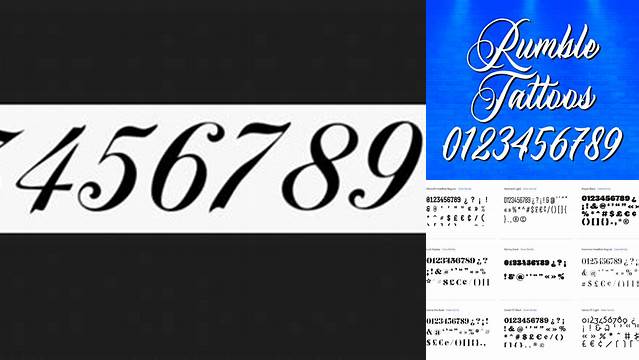
Number Tattoo Fonts: Find Your Perfect Style
Are you planning to get a number tattoo and searching for the perfect font? Well, you've come to the right place! Choosing the right font is crucial because it significantly impacts the overall look and feel of your tattoo. A well-chosen font can transform a simple number into a stunning piece of art. In this article, we’ll explore some of the best number tattoo fonts, provide tips on how to select the ideal one, and offer inspiration to help you make the best decision. Let’s dive in, guys!
Why Font Choice Matters for Number Tattoos
When it comes to number tattoos, the font you select plays a pivotal role in conveying the message and aesthetic you desire. The font is more than just a stylistic choice; it reflects your personality, the meaning behind the numbers, and the overall artistic impression. Think of it this way: the same number can look entirely different depending on whether it’s rendered in a bold, traditional serif font or a sleek, modern sans-serif typeface. Font choice impacts readability, longevity, and the tattoo’s ability to harmonize with other elements of your design.
Readability is paramount. A complex or overly stylized font might look artistic initially, but it could become illegible over time, especially as the tattoo ages and the ink spreads slightly. Simpler, cleaner fonts tend to hold up better and remain readable for years. Consider the size of your tattoo as well; smaller tattoos require fonts with clear, distinct lines to prevent the numbers from blurring together. Beyond readability, the font sets the tone. A script font can add elegance and sophistication, making it ideal for memorial tattoos or dates of significance. Conversely, a blocky, industrial font might be perfect for someone wanting a bold, edgy look. The font should resonate with the meaning behind the numbers. Are they a birthdate, a lucky number, or a significant year? The font should enhance and reflect that meaning. Harmony with other design elements is also crucial. If your number tattoo is part of a larger design, the font should complement the other visual components, such as images, symbols, or text. A cohesive design ensures that the tattoo looks intentional and well-planned, rather than a collection of disparate elements. Ultimately, the right font choice transforms your number tattoo from a mere sequence of digits into a meaningful and aesthetically pleasing piece of body art.
Top Font Styles for Number Tattoos
Selecting the best font for your number tattoo can be exciting but also a bit overwhelming with so many options available. To help you navigate this process, let's break down some of the top font styles that work exceptionally well for number tattoos. Each style brings its unique flair, allowing you to tailor your tattoo to your personal taste and the meaning behind the numbers.
Roman Numerals
Roman numerals are a classic and timeless choice for tattoos, offering an air of sophistication and historical significance. They are particularly popular for memorial tattoos, dates of birth, or anniversaries. The elegant, symmetrical lines of Roman numerals make them visually appealing and easy to read, even in smaller sizes. One of the main reasons people opt for Roman numerals is their inherent gravitas. They evoke a sense of history and tradition, connecting the wearer to a rich cultural heritage. This makes them an excellent choice for those who appreciate classical aesthetics and timeless designs. Moreover, Roman numerals can be easily integrated into various tattoo styles. Whether you prefer a minimalist design or a more elaborate piece, they can be adapted to suit your vision. They pair well with other design elements such as floral patterns, geometric shapes, or even other text. For example, a birthdate in Roman numerals can be incorporated into a larger memorial piece, surrounded by meaningful symbols or quotes. The readability of Roman numerals is another significant advantage. Despite their decorative appearance, they are generally easy to decipher, especially when rendered in a clear, simple font. However, it's crucial to ensure that the numerals are correctly represented to avoid any embarrassing or permanent errors. Before getting inked, double-check the accuracy of the Roman numerals with a reliable source or a knowledgeable tattoo artist. Consider the placement of your Roman numeral tattoo as well. They often look stunning on the wrist, forearm, shoulder, or along the spine. The placement should complement the design and enhance its overall impact. Ultimately, Roman numerals offer a blend of elegance, history, and versatility, making them a top choice for number tattoos that stand the test of time.
Old English
The Old English font exudes a sense of tradition and timelessness, making it a popular choice for those looking to add a touch of historical flair to their number tattoo. Characterized by its elaborate, ornate letterforms, Old English conveys a sense of gravitas and old-world charm. This font style is particularly well-suited for individuals who appreciate gothic aesthetics, medieval history, or classic literature. The distinctive look of Old English fonts comes from their intricate details and bold strokes. Each number is crafted with elaborate serifs and flourishes, creating a visually striking effect. This makes them ideal for larger tattoos where the details can be fully appreciated. However, it's essential to consider the readability of Old English, especially in smaller sizes. The ornate nature of the font can sometimes make it difficult to decipher, so it's crucial to work with a skilled tattoo artist who can render the numbers clearly and accurately.
When incorporating Old English into a number tattoo, consider the context and meaning of the numbers. This font style pairs well with significant dates, such as birth years, anniversaries, or memorial dates. The formal and elegant nature of Old English adds a sense of importance and reverence to these numbers, making them stand out. It's also important to think about the placement of your Old English number tattoo. This font style tends to look best on larger areas of the body, such as the upper arm, back, or chest, where the details can be fully showcased. Avoid placing it in areas where the skin is prone to stretching or distortion, as this can affect the legibility of the tattoo over time. Moreover, consider the overall design of your tattoo. Old English numbers can be combined with other design elements, such as banners, scrolls, or heraldic symbols, to create a cohesive and visually appealing piece. Be sure to choose elements that complement the font style and enhance the overall aesthetic. While Old English fonts can add a touch of elegance and tradition to your number tattoo, it's essential to approach this style with care and attention to detail. Work closely with your tattoo artist to ensure that the numbers are rendered accurately and legibly, and consider the placement and overall design of your tattoo to create a timeless and meaningful piece of body art.
Gothic
Gothic fonts bring a bold and dramatic flair to number tattoos, making them a favorite among those who appreciate a darker, more edgy aesthetic. Characterized by their sharp angles, heavy strokes, and elaborate details, Gothic fonts command attention and exude a sense of mystery and intrigue. This style is particularly popular among individuals who are drawn to alternative cultures, such as punk, metal, or gothic subcultures. The distinctive look of Gothic fonts stems from their historical roots in medieval calligraphy. These fonts were originally used in illuminated manuscripts and religious texts, giving them a sense of historical gravitas and timeless appeal. The sharp, angular letterforms and intricate embellishments create a visually striking effect that is both captivating and imposing.
When considering a Gothic font for your number tattoo, it's important to think about the overall design and meaning of the tattoo. Gothic fonts pair well with symbols and imagery that evoke a sense of darkness, such as skulls, ravens, or crosses. They can also be used to create a sense of contrast and tension when combined with lighter, more delicate elements. One of the key considerations when choosing a Gothic font is readability. The elaborate details and sharp angles of these fonts can sometimes make them difficult to decipher, especially in smaller sizes. It's crucial to work with a skilled tattoo artist who can render the numbers clearly and accurately, ensuring that they remain legible over time. Additionally, think about the placement of your Gothic number tattoo. This font style tends to look best on larger areas of the body, such as the back, chest, or upper arm, where the details can be fully appreciated. Avoid placing it in areas where the skin is prone to stretching or distortion, as this can affect the legibility of the tattoo. Moreover, consider the overall aesthetic you're trying to achieve. Gothic fonts can be used to create a variety of different looks, from dark and menacing to elegant and refined. The key is to choose a font that aligns with your personal style and the meaning of the numbers you're tattooing. Whether you're drawn to the historical significance, the edgy aesthetic, or the dramatic flair, Gothic fonts offer a unique and compelling option for number tattoos that are sure to make a statement.
Simple Sans-Serif
If you're aiming for a clean, modern, and minimalist number tattoo, simple sans-serif fonts are an excellent choice. These fonts are characterized by their clean lines, lack of serifs (the small decorative strokes at the end of letterforms), and overall simplicity. Sans-serif fonts offer a contemporary aesthetic that is both versatile and timeless, making them a popular choice for individuals who appreciate understated elegance.
One of the main advantages of using a simple sans-serif font for your number tattoo is its readability. The clean lines and uncluttered design make these fonts easy to decipher, even in smaller sizes. This is particularly important for tattoos, as the ink can spread over time, potentially blurring the lines and making the numbers difficult to read. Sans-serif fonts also offer a high degree of versatility. They can be easily adapted to suit a variety of different tattoo styles and placements. Whether you're planning a small, discreet tattoo on your wrist or a larger piece on your back, a sans-serif font can be tailored to fit your needs. Moreover, sans-serif fonts pair well with other design elements. They can be combined with geometric shapes, minimalist patterns, or even other text to create a cohesive and visually appealing tattoo. The simplicity of the font allows the other elements to shine, creating a balanced and harmonious design. When choosing a sans-serif font for your number tattoo, consider the weight and spacing of the letters. A slightly bolder weight can help the numbers stand out, while adequate spacing ensures that they remain legible and distinct. It's also important to choose a font that complements your skin tone and the overall aesthetic you're trying to achieve. Whether you're drawn to the clean lines, the versatility, or the understated elegance, simple sans-serif fonts offer a timeless and reliable option for number tattoos that are both stylish and easy to read. They are especially suited for those who prefer a modern look and want to ensure their tattoo remains clear and legible for years to come. Guys, this is a solid option!
Choosing the right font for your number tattoo can feel like a big decision, but with a few helpful tips, you can navigate the process with confidence. The perfect font will not only look great but also reflect your personal style and the meaning behind the numbers. Here’s some advice to guide you:
- Consider the Meaning: Think about what the numbers represent. Is it a birthdate, a memorial date, or a lucky number? The font should complement the significance of the numbers. For example, a delicate script might be perfect for a romantic anniversary date, while a bold, gothic font could suit a significant year of personal triumph.
- Think About Size and Placement: The size of your tattoo and where you plan to place it on your body will influence the font choice. Smaller tattoos require simpler, more legible fonts to prevent blurring. Larger areas allow for more intricate designs. For instance, a small wrist tattoo needs a clean, sans-serif font, while a larger back piece can accommodate a more elaborate Old English style.
- Readability is Key: Always prioritize readability. A beautiful font is useless if it's hard to decipher, especially as the tattoo ages. Opt for fonts with clear, distinct lines and avoid overly stylized options that could become illegible over time. Test the font in different sizes to ensure it remains clear.
- Match Your Style: Your tattoo should reflect your personal aesthetic. If you prefer a classic look, Roman numerals or Old English fonts might be ideal. For a modern vibe, consider sans-serif fonts. If you're into edgy designs, gothic fonts could be a great fit. The font should align with your overall style and personality.
- Consult with Your Tattoo Artist: Your tattoo artist is a valuable resource. They can offer advice on which fonts work best for tattoos, taking into account factors like skin type, ink longevity, and design complexity. Show them examples of fonts you like and ask for their professional opinion. They can also help you customize the font to make it unique.
- Test It Out: Before committing, try out the font by printing it in the desired size and placing it on your skin. This will give you a better idea of how it will look and feel. You can also use temporary tattoos to test out different fonts and placements.
- Longevity Matters: Consider how the font will age over time. Fine lines in elaborate fonts might fade or blur, while bolder fonts tend to hold up better. Choose a font that will still look good years down the road. Simple, classic fonts often have the best longevity.
By following these tips, you can choose a font that not only looks fantastic but also stands the test of time. Remember, your tattoo is a permanent piece of art, so take the time to make the right decision. You got this!
Inspiration: Number Tattoo Ideas
Need some inspiration for your number tattoo? Here are a few ideas to spark your creativity. Remember, the best tattoos are those that hold personal meaning, so use these ideas as a starting point and customize them to reflect your unique story and style:
- Birthdates: Ink the birthdate of a loved one in Roman numerals or a simple sans-serif font. Consider adding a small, meaningful symbol like a heart or a star.
- Memorial Dates: Honor the memory of someone special with a memorial date in an elegant Old English or Gothic font. Incorporate their name or a significant quote.
- Lucky Numbers: Celebrate your lucky number in a bold, eye-catching font. Add surrounding elements like stars, dice, or playing cards for extra flair.
- Anniversary Dates: Commemorate your anniversary with your partner's initials and number using a delicate script font for a romantic touch. Include a small heart or intertwined rings.
- Coordinates: Mark a special location with its geographical coordinates using a clean, modern font. This is perfect for travel enthusiasts or those who want to remember a significant place.
- Significant Years: Highlight a year that holds personal significance, such as a graduation year, a year of overcoming challenges, or a year of personal growth. Use a font that reflects the tone of that year, whether it's bold and triumphant or elegant and reflective.
No matter what you choose, make sure your number tattoo tells your story in a way that feels authentic and meaningful. Remember, the best tattoos are not just visually appealing; they carry a piece of your heart and soul.
Choosing the best number tattoo font is a crucial step in creating a meaningful and visually appealing piece of body art. From classic Roman numerals to modern sans-serif fonts, the options are endless. By considering the meaning behind the numbers, the size and placement of your tattoo, and your personal style, you can select a font that perfectly captures your vision. Remember to prioritize readability and consult with your tattoo artist for expert advice. With the right font, your number tattoo will not only look stunning but also stand the test of time, telling your story for years to come. So go ahead, get inspired, and create a number tattoo that is uniquely you!